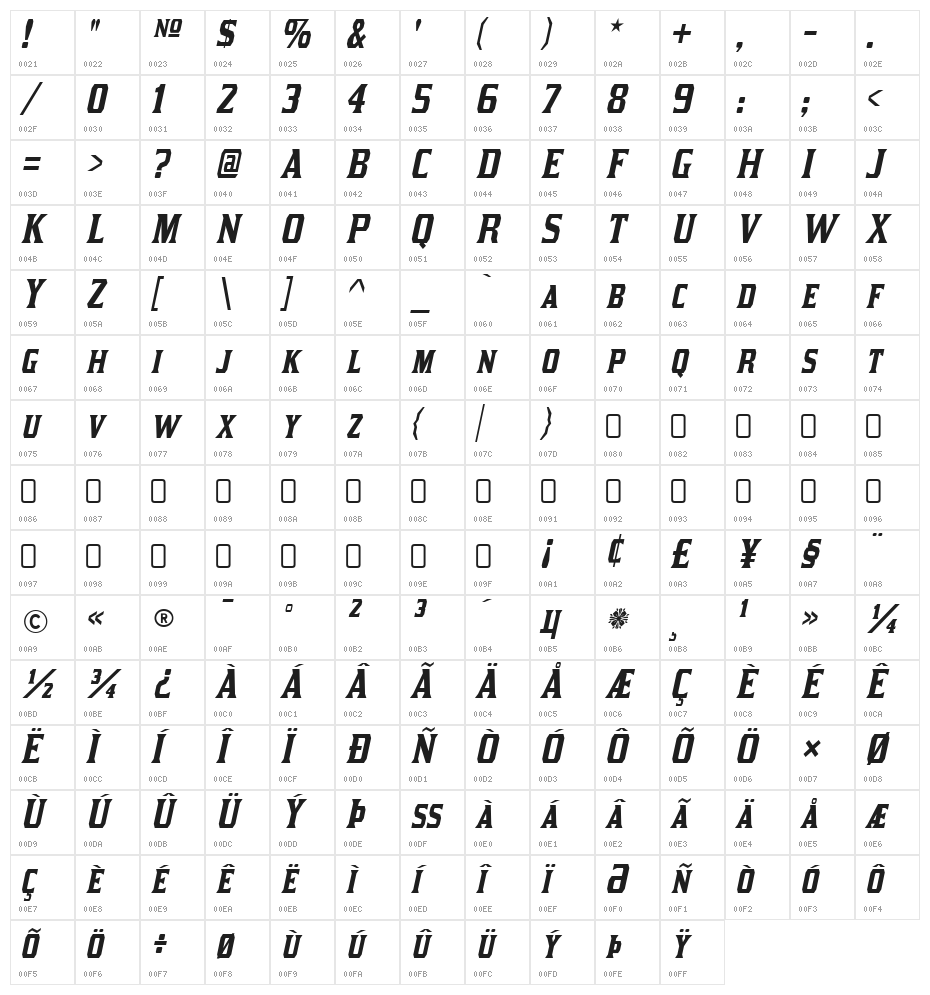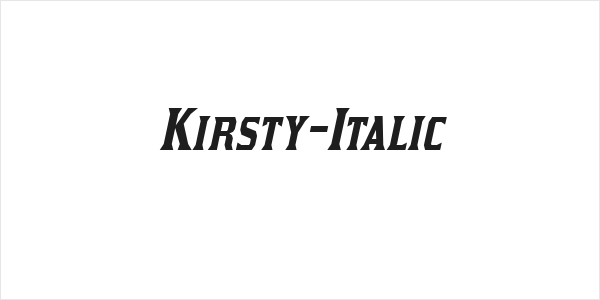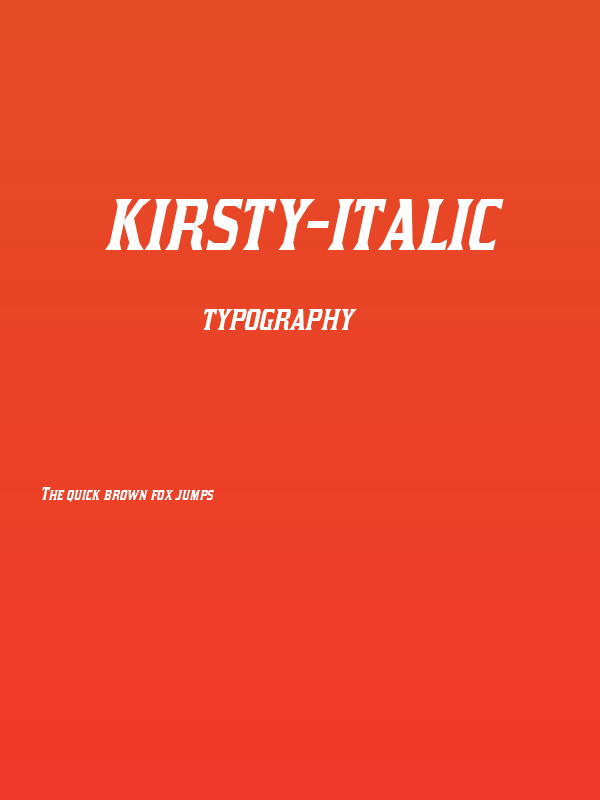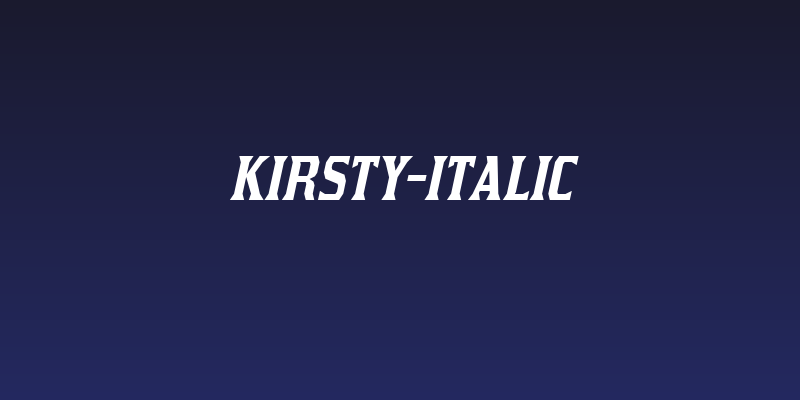
Kirsty-Italic Font
Kirsty-Italic Description
This font features a dynamic and angular design with a strong italic slant, giving it a sense of motion and energy. The characters are bold and impactful, with sharp edges and a modern aesthetic. The uppercase and lowercase letters maintain a consistent style, with the uppercase being particularly striking due to its pronounced angles. Numbers and special characters follow the same design principles, ensuring uniformity across all elements. The overall appearance is sleek and contemporary, making it suitable for projects that require a bold statement.
| Proposed Projects | Ideal for sports branding, dynamic posters, modern advertising, and any project needing a bold, energetic typeface. |